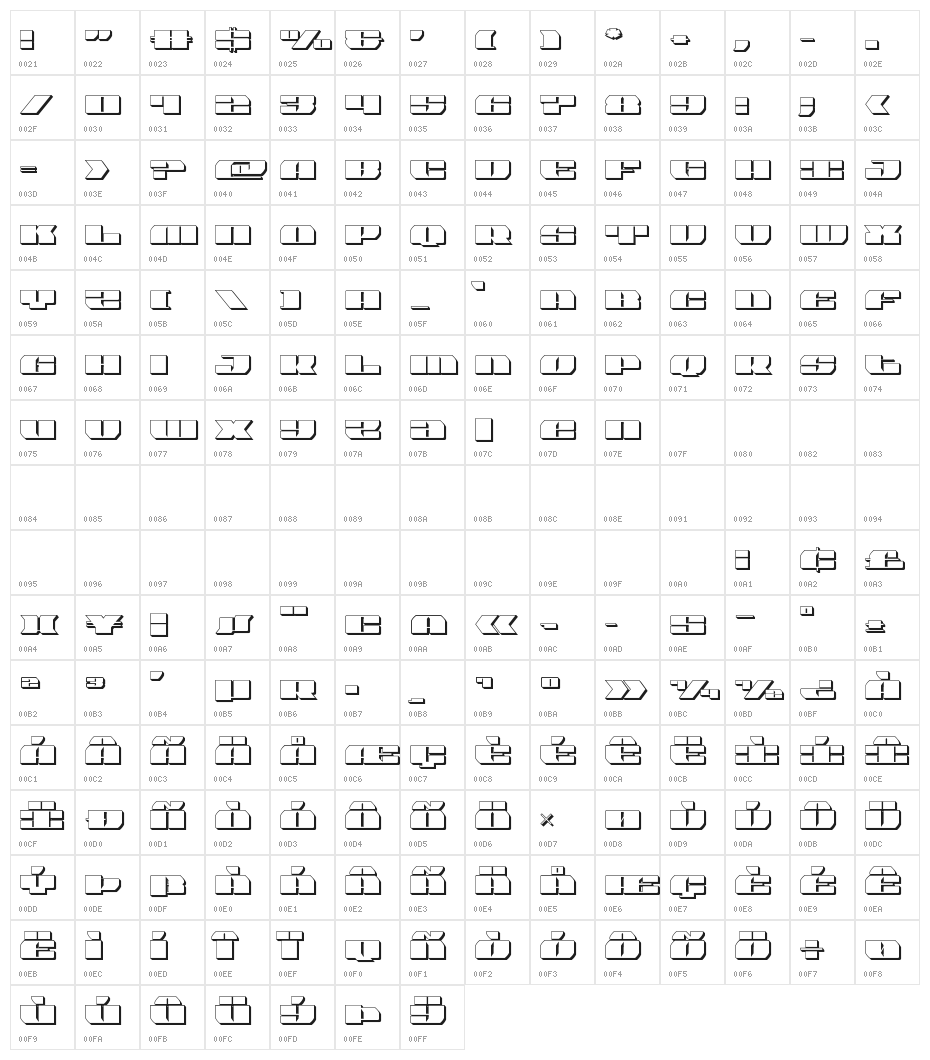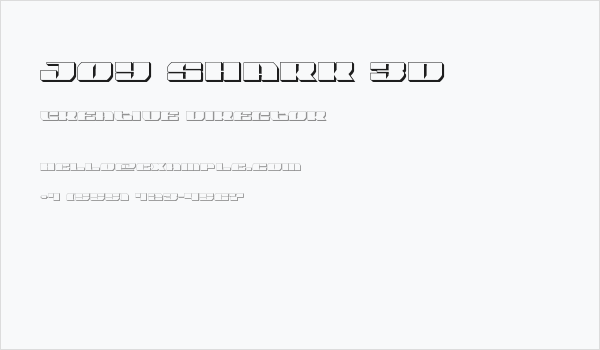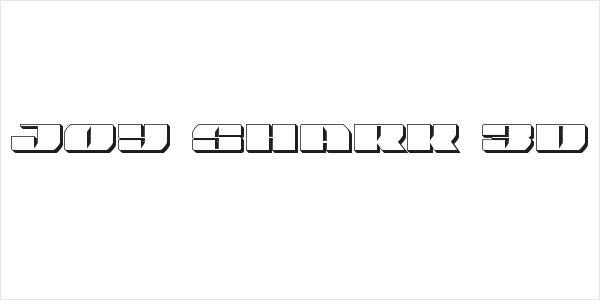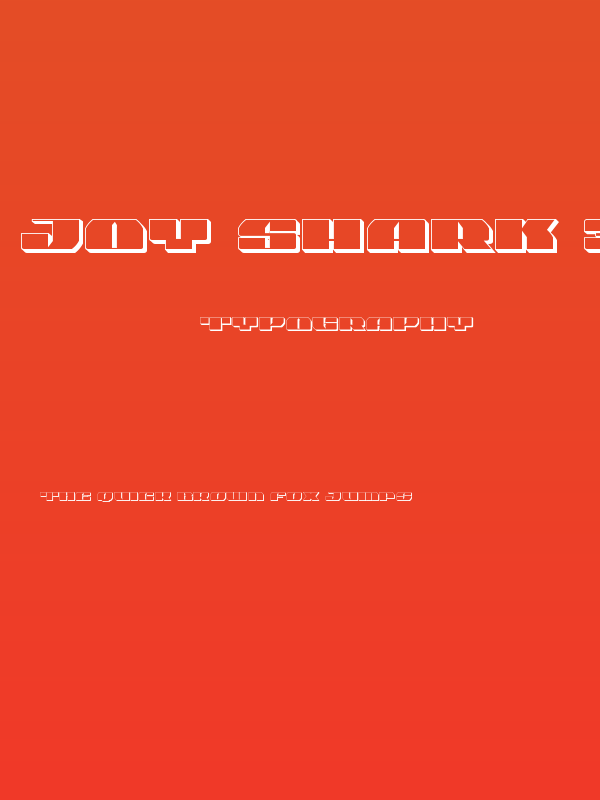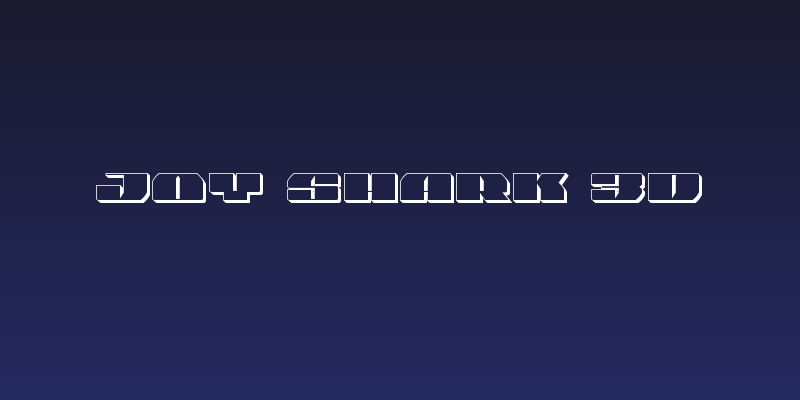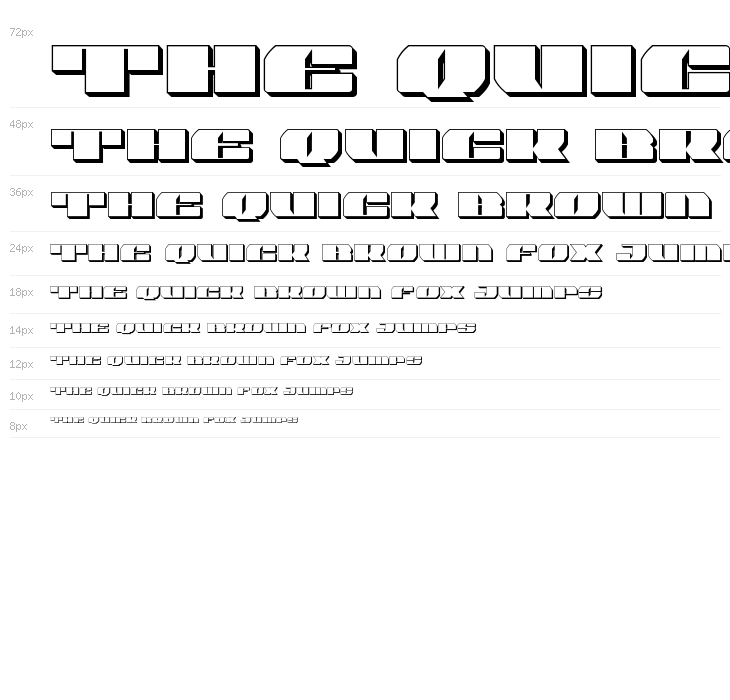
Joy Shark 3D Font
Joy Shark 3D Description
This font features a bold, three-dimensional design with a blocky, geometric style. Each character is outlined with a thick border, creating a strong visual impact. The letters are uniformly structured with sharp angles and straight lines, giving them a futuristic and industrial appearance. The 3D effect is achieved through the use of shading and perspective, making the characters appear as if they are popping out of the page. This font is highly decorative and is best suited for eye-catching headlines or titles. The numbers and special characters maintain the same bold and structured design, ensuring consistency across all elements.
| Proposed Projects | Ideal for use in video game titles, sci-fi movie posters, tech company logos, or any project requiring a modern and impactful typeface. |